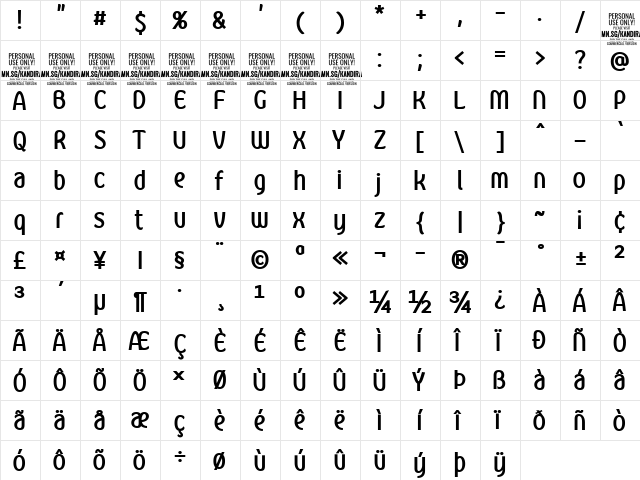
Kandira PERSONAL Bold
| Foundry | Mans Greback |
| Designer | Mans Greback |
Design Context for Kandira PERSONAL Typeface
Kandira PERSONAL is a composed and adaptable typeface that performs quietly and consistently across a wide range of design contexts. Its bold stroke weight gives it real presence on the page.